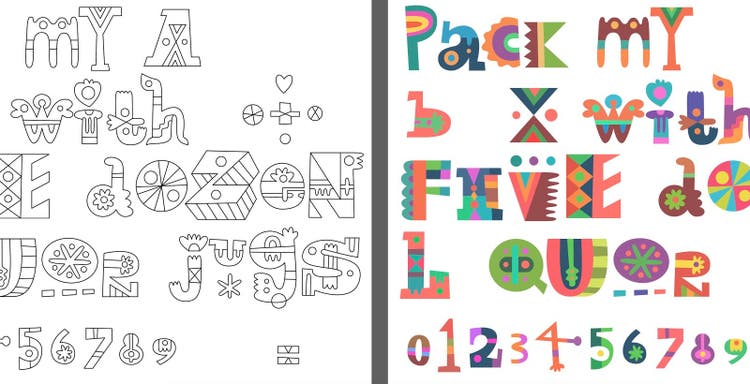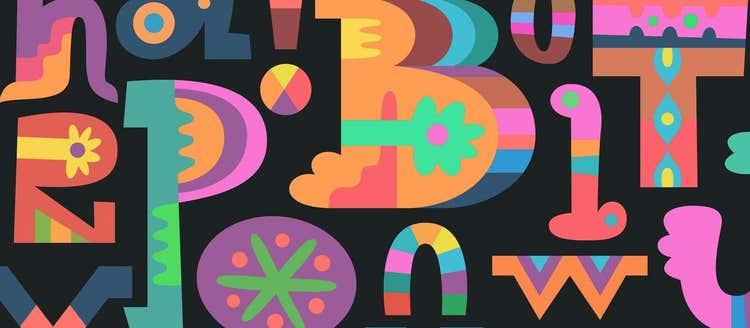
For Matt, new font designs start off as a sketch, drawing, or doodle. His secret is stopping his creative brainstorming when he starts noticing that he’s repeating himself. That’s when he looks back at all of his sketches and starts translating them into the bezier curves in Illustrator.
With Playbox, Matt wanted to create a font that reflected many of the shapes and motifs familiar to his other work. He wanted it to be playful and spontaneous with letter shapes of all sizes. Playbox is whimsical and playful in every form, from the color, to the shapes, to the varied spacing. It is the ultimate exploration of the creative boundaries of the OpenType-SVG color font.
Despite the font’s whimsical designs, Matt was thoughtful about maintaining readability. The variation in size, coloring, and shape elements across the whole alphabet required that Matt make each letter super legible. You’ll notice that he deliberately used ample kerning to give room between letters. He also uses complementary color pairings like blue and orange or purple and green to make the punchouts of the the letters.